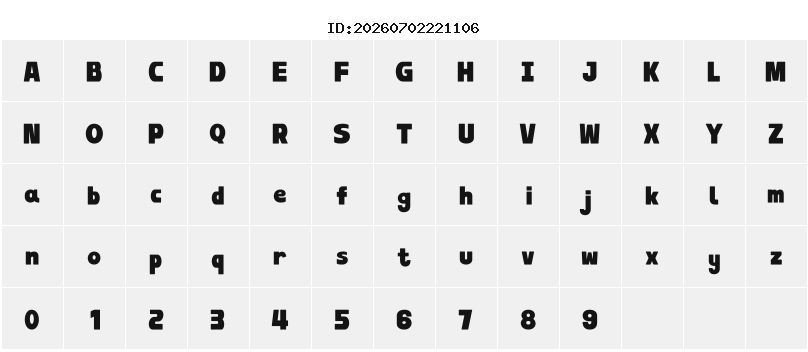
197-上首魔方体 Preview
• Font Name: 197-上首魔方体
• Font ID: 197-SSmofangTi:Version 4.00
• Full Font Name: 197-上首魔方体
• Version: Version 4.00 November 11, 2022
• PostScript Name: 197-SSmofangTi
• Character Count: 7567
• Manufacturer: 上首造字
About 197-上首魔方体.ttf
197-上首魔方体.ttf is a modern, elegant sans-serif font designed for ultimate readability and visual harmony. Perfect for branding, headlines, web design, and print materials.